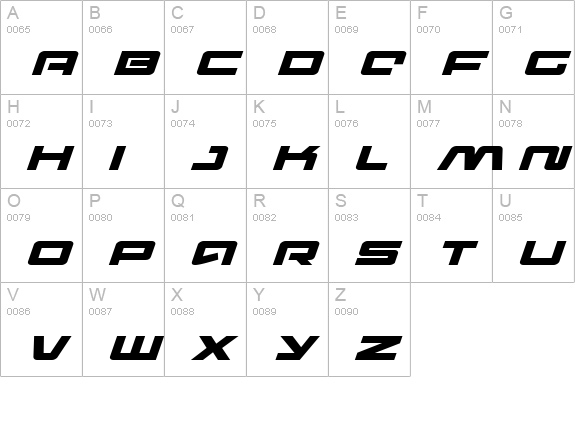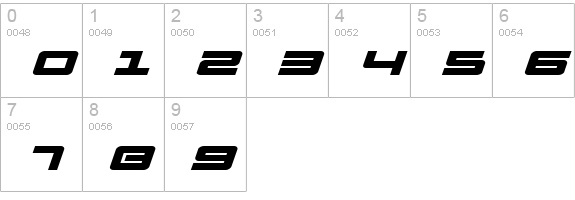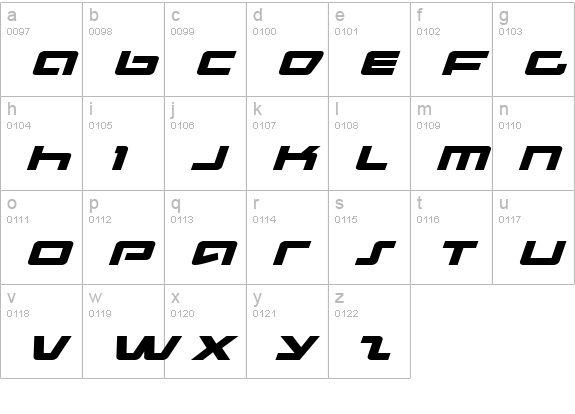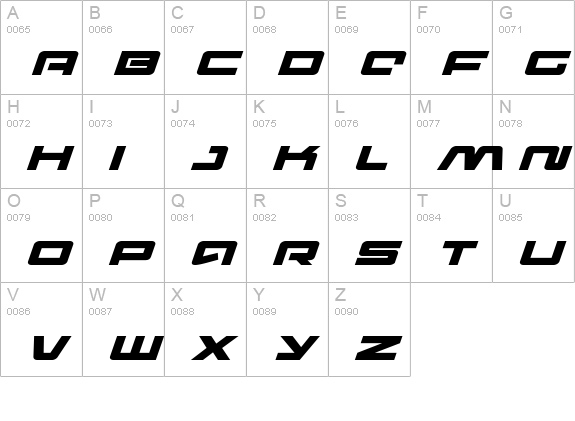
Pulse Rifle Expanded Italic is a distinctive, extended-width, italic variant in the Pulse typeface family \xE2\x80\x94 well suited to design and typography projects.
The Pulse Rifle Expanded Italic font is a sleek and modern typeface that exudes sophistication and style. Its italicized design adds a touch of flair and elegance to any text, making it perfect for projects that require a contemporary and professional look. The font features clean lines and sharp edges, giving it a futuristic and high-tech vibe that is sure to impress. Best of all, Pulse Rifle Expanded Italic is available for free download at FontsMarket.com. This means you can easily access this stylish font and use it in your designs without any cost. Whether you're working on a website, poster, logo, or any other creative project, Pulse Rifle Expanded Italic is the perfect choice to elevate your design and make a lasting impression. Download it now and add a touch of modern sophistication to your work!